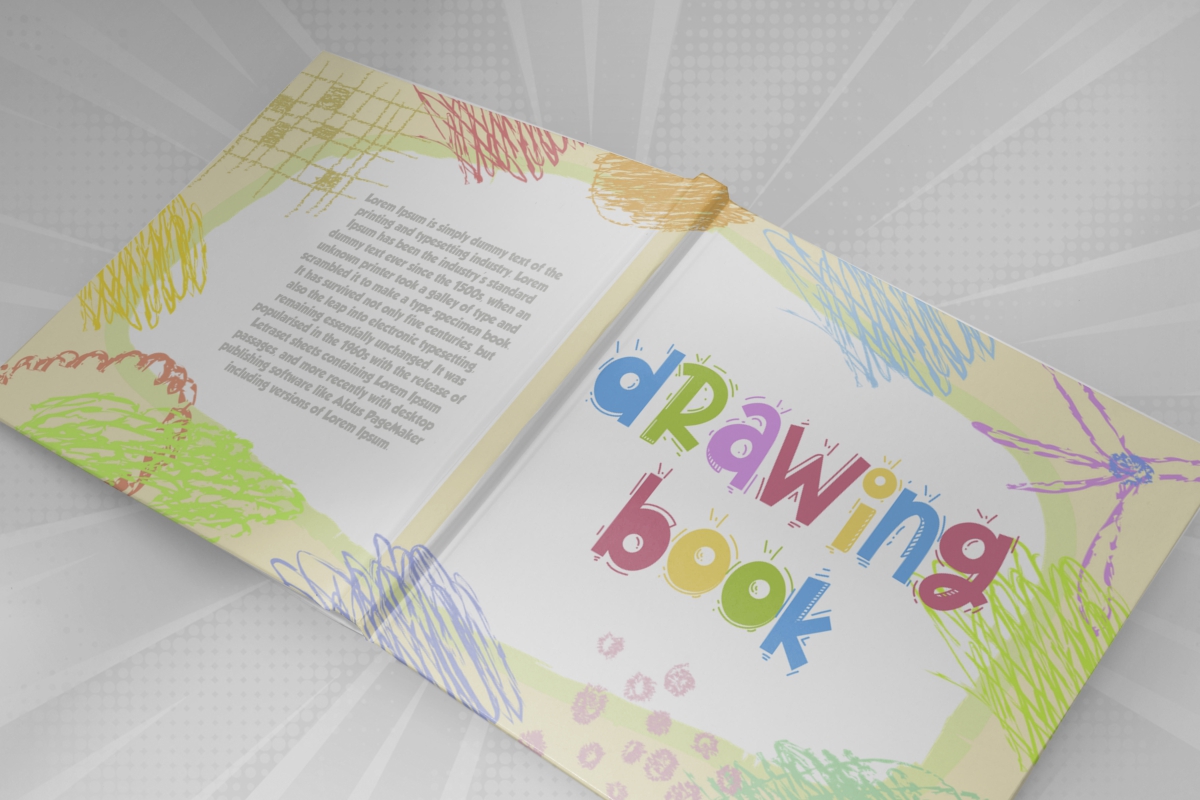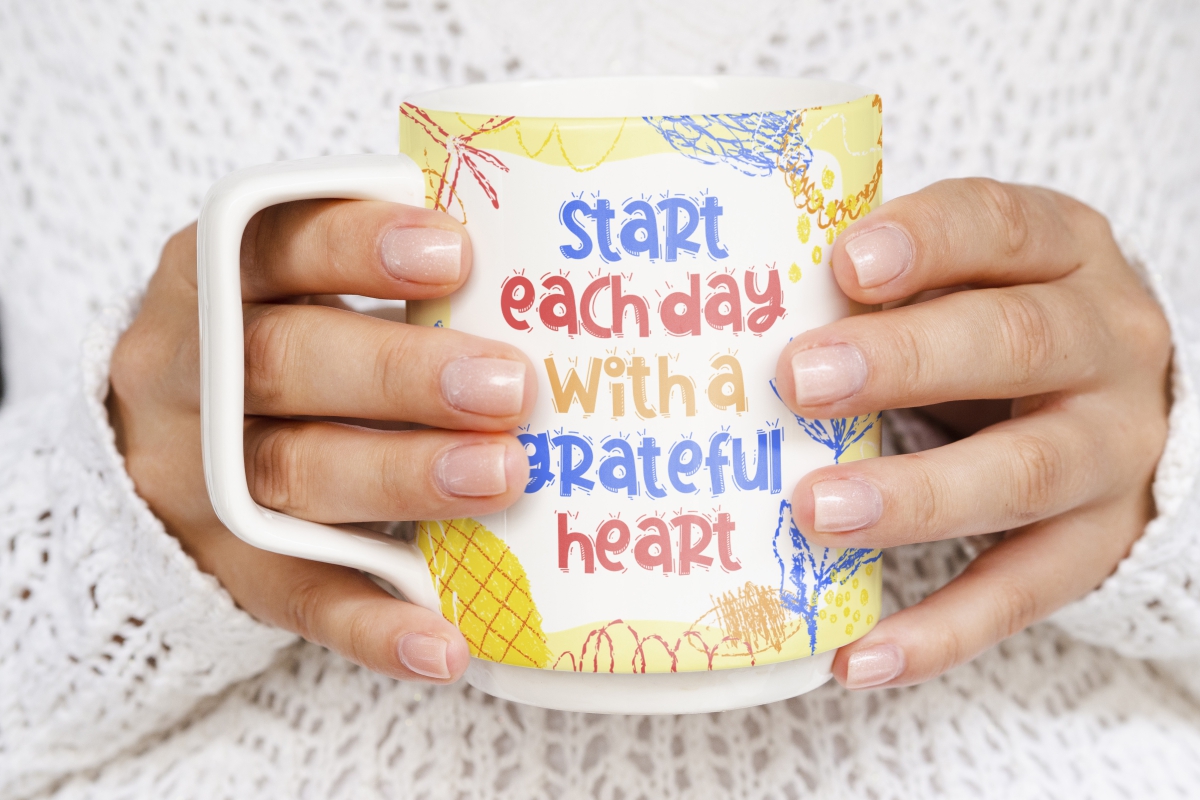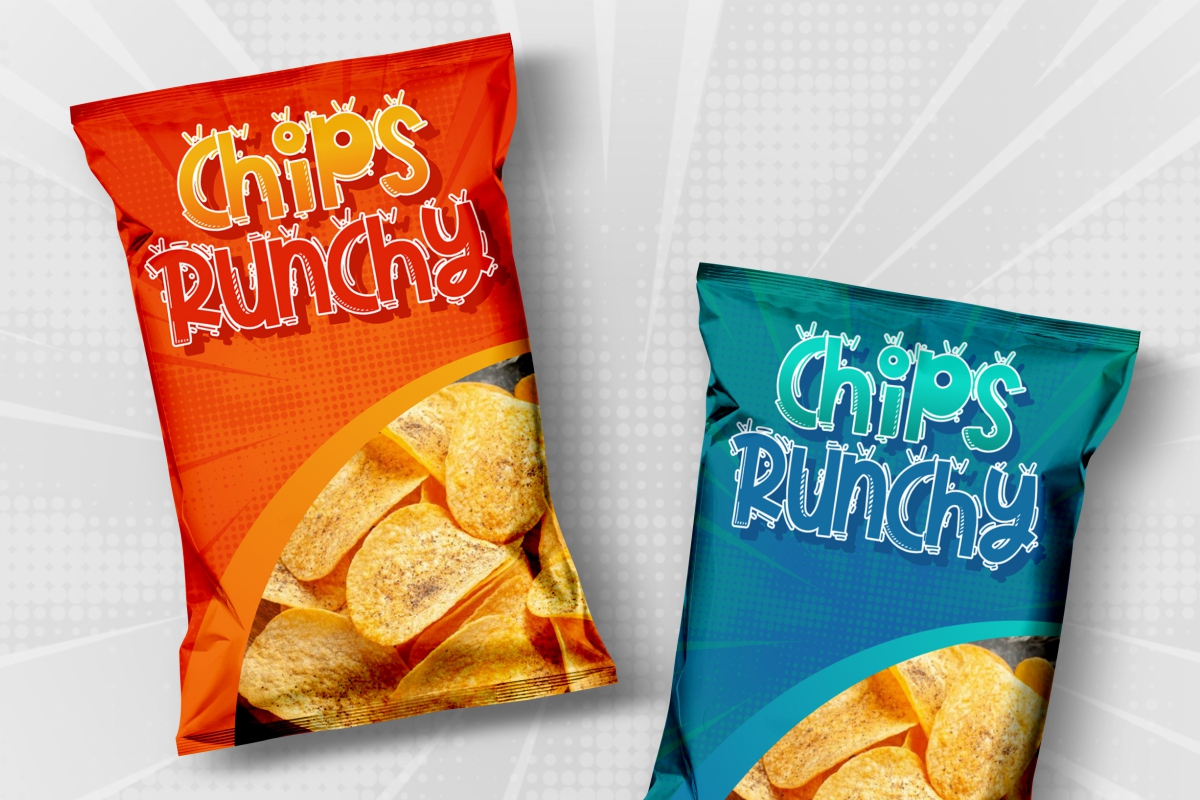
Comic Crayon Font
Comic Crayon Display Font
It’s a fun display with comic style created by NihStudio. This font has a distinctive comic strip on each letter that makes it stand out. It is perfect for many industries such as, craft, fashion, kids stuff, school, snacks, and many more!